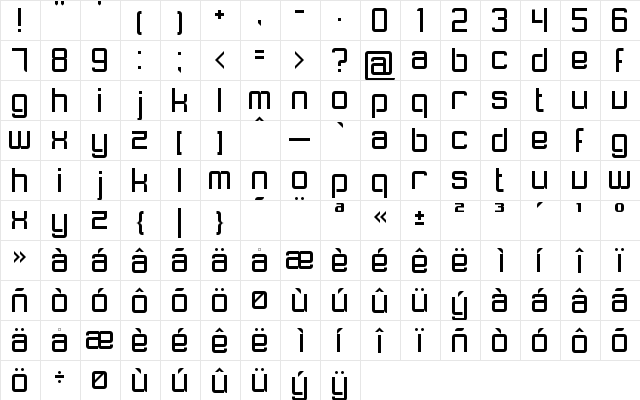
Lower Face Regular
Design Context for Lower Face Typeface
Lower Face takes a measured approach to typography — its balanced proportions and neutral character make it a reliable workhorse for both digital and print work.